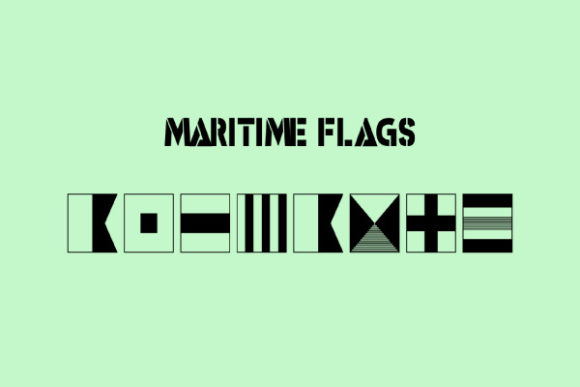
In a world where words often fall short of expressing emotions, symbols and icons transcend linguistic barriers, painting vivid pictures that speak to the soul. Embark on a typographic voyage with Maritime Flags Font, a dingbats font family that unfurls the beauty of communication through the language of flags.
Crafted with meticulous attention to detail by Freebies, the visionary behind this nautical masterpiece, Maritime Flags Font is not just a collection of characters; it's an artistic odyssey that transforms your digital creations into captivating visual tales.
Picture this: a social media post adorned with the Star Spangled Banner, a website adorned with the Jolly Roger, or a blog post sprinkled with the vibrant hues of the Signal Flags. With Maritime Flags Font, the possibilities are boundless, and the impact is undeniable.
Visual Communication at its Finest:
Maritime Flags Font is more than just a font; it's a storytelling tool that breathes life into your digital content. Each flag, meticulously designed and rendered with pixel-perfect precision, carries a unique meaning, inviting your audience to embark on a journey of discovery and engagement.
Elevate Your Digital Presence:
In a world where attention spans are fleeting, captivating visuals are no longer a luxury; they're a necessity. Maritime Flags Font elevates your digital presence by turning mundane text into captivating visual narratives. Whether you're a blogger, a designer, or an entrepreneur, this font family adds a touch of flair and distinction to your projects.
A Font for Every Occasion:
Versatility is the hallmark of Maritime Flags Font. With its diverse collection of flags, this font family adapts seamlessly to a myriad of creative endeavors. From social media posts and website designs to flyers, posters, and even merchandise, Maritime Flags Font is your trusty companion, ready to transform your ideas into visual masterpieces.
Maritime Flags Font: The Ultimate Choice for Visual Storytellers:
If you seek to break free from the mundane and embark on a typographic adventure, Maritime Flags Font is your guiding light. Its ability to seamlessly integrate with any project, coupled with its captivating visual appeal, makes it the ultimate choice for visual storytellers who dare to think outside the box.
Unleash the power of Maritime Flags Font today and let your creativity set sail!